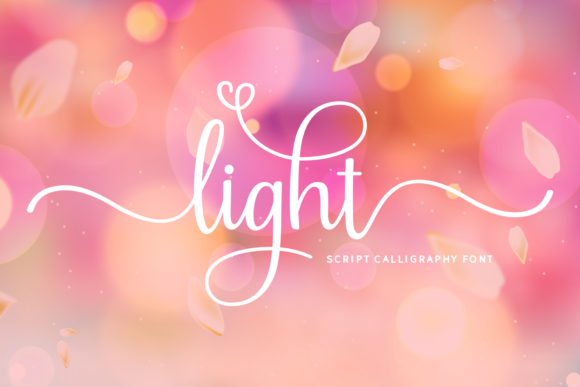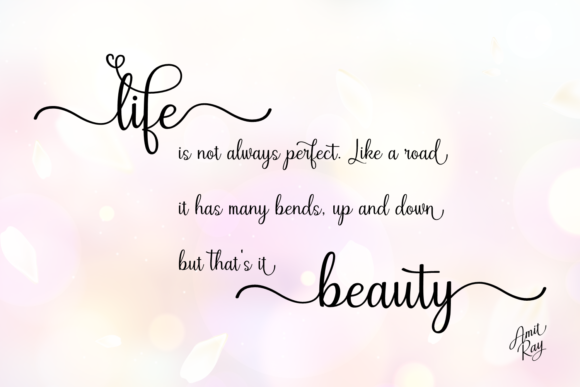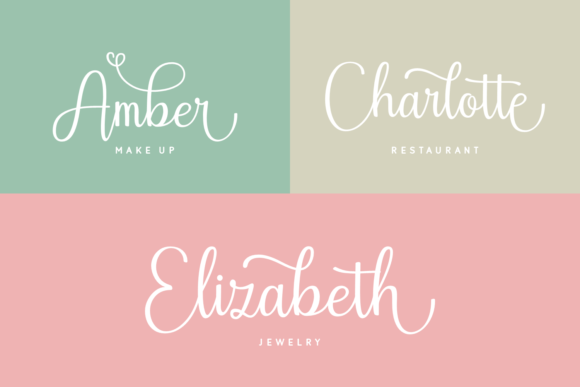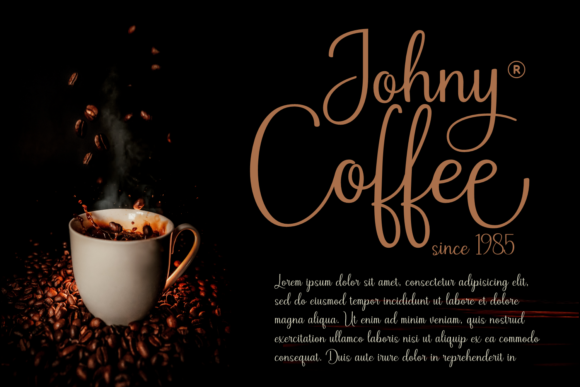
Light Font
About the Light Font
Step up your design game with Light Font, a font that exudes confidence and style. Light is an exquisite script font featuring cursive characters and splendid readability. Add it to products that need dainty and original typography, with a touch of romance.
Light excels in applications requiring a delicate touch, such as wedding invitations, greeting cards, or branding for businesses emphasizing elegance and sophistication. Its graceful curves make it ideal for short headlines, logos, and watermarks, but its cursive nature limits its effectiveness in body text or UI elements where readability over long stretches is crucial. Avoid using it for large blocks of text or situations demanding high legibility.
Pairing Light with a clean sans-serif like Lato for body copy provides excellent contrast and enhances readability. For a more vintage feel, consider pairing it with a complementary serif font such as Garamond. A geometric sans-serif font such as Futura could also offer a striking juxtaposition, creating a modern yet romantic aesthetic.
Light projects a refined and romantic personality, best suited for brands conveying femininity, luxury, or handcrafted quality. Its subtle curves and delicate forms avoid being overly playful or whimsical, instead maintaining a sophisticated and timeless appeal.
Light Font Usage Examples
Light Font Example